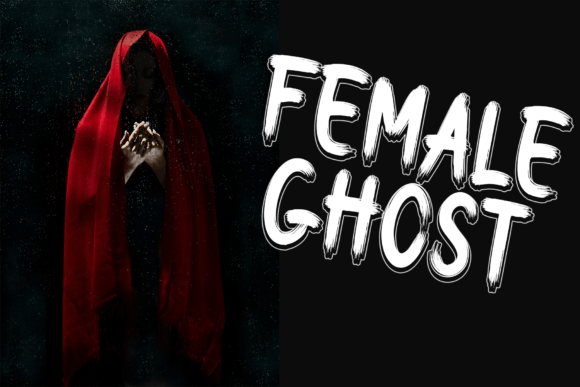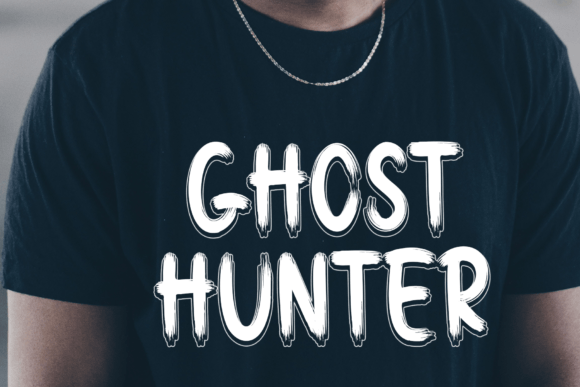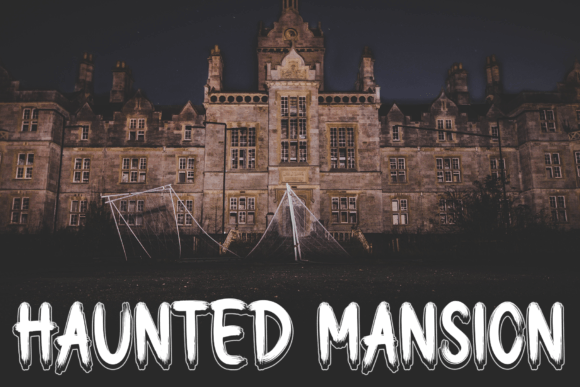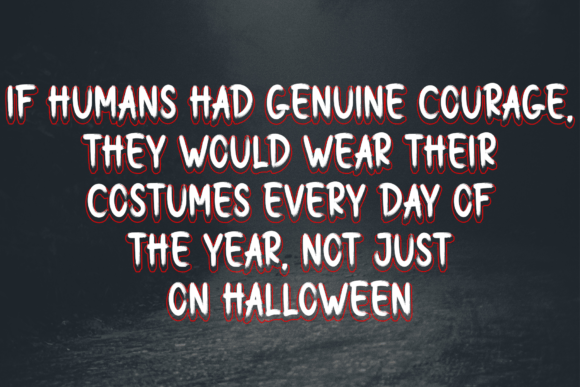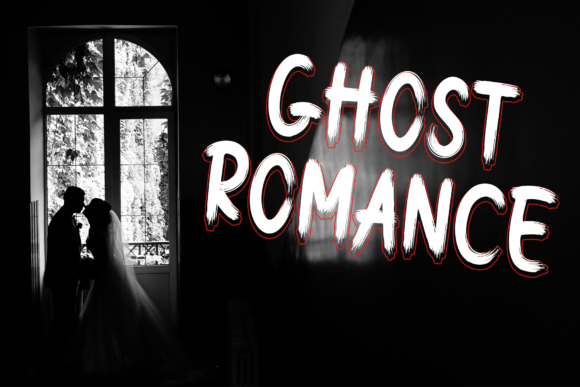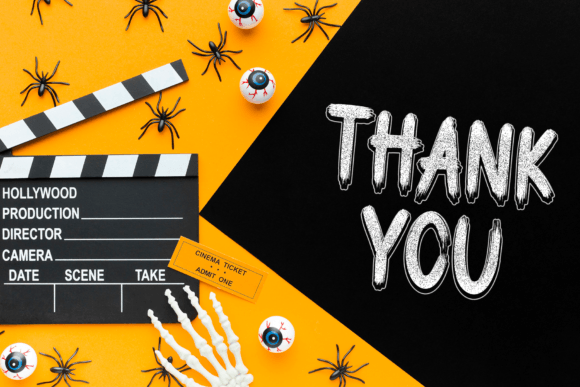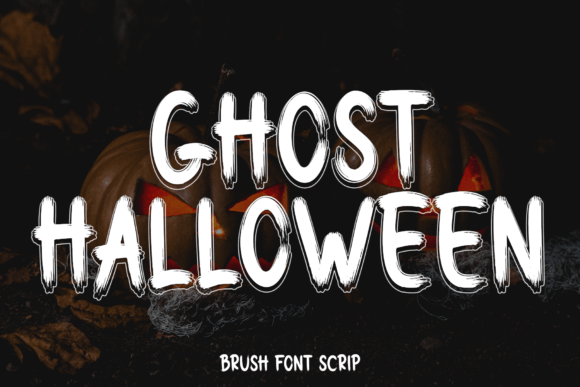
Unleash the Spookiness: A Comprehensive Guide to Ghost Halloween Font
As the spookiest time of the year approaches, designers and crafters are on the lookout for the perfect typography to set the tone for their Halloween-themed creations. Look no further than the Ghost Halloween Font, a unique and eerie brush script font that’s sure to send chills down the spines of your audience. In this article, we’ll dive into the details of this fascinating font and explore its endless possibilities for creating eye-catching Halloween designs.
What is Ghost Halloween Font?
Ghost Halloween Font is a brush script font that combines the fluidity of handwriting with the boldness of a display font. Its unique and spooky typeface is specifically designed to capture the essence of the Halloween season, making it perfect for creating a wide range of designs, from party invitations to social media graphics.
Key Features of Ghost Halloween Font
- Brush Script Style: The Ghost Halloween Font boasts a beautiful, hand-brushed look that adds a touch of elegance and sophistication to your designs.
- Spooky and Eerie: The font’s bold and dramatic design makes it perfect for creating spooky and eerie effects that are sure to send chills down the spines of your audience.
- Perfect for Display: The Ghost Halloween Font is designed specifically for display use, making it perfect for headlines, titles, and other prominent text elements.
- Easily Readable: Despite its bold and dramatic design, the Ghost Halloween Font remains easily readable, making it perfect for use in a wide range of designs.
Uses for Ghost Halloween Font
The Ghost Halloween Font is incredibly versatile and can be used in a wide range of designs, including:
- Halloween Party Invitations: Create eye-catching and spooky invitations that set the tone for your Halloween party.
- Social Media Graphics: Use the Ghost Halloween Font to create spooky and engaging social media graphics that are sure to grab the attention of your followers.
- Halloween-themed Stationery: Add a touch of spookiness to your Halloween-themed stationery, including cards, stickers, and other paper crafts.
- Signage and Displays: Use the Ghost Halloween Font to create eye-catching signage and displays for your Halloween-themed events or promotions.
Tips for Using Ghost Halloween Font
To get the most out of the Ghost Halloween Font, here are a few tips to keep in mind:
- Use it Sparingly: While the Ghost Halloween Font is perfect for display use, it’s best to use it sparingly to avoid overwhelming your design.
- Pair it with Other Fonts: Experiment with pairing the Ghost Halloween Font with other fonts to create a unique and visually appealing design.
- Play with Colors: Don’t be afraid to experiment with different colors and textures to add depth and interest to your design.
The Ghost Halloween Font is a unique and spooky typeface that’s perfect for creating eye-catching and eerie designs for the Halloween season. With its brush script style, bold and dramatic design, and ease of use, it’s a must-have font for designers and crafters looking to create spooky and engaging designs. Whether you’re creating Halloween party invitations, social media graphics, or signage and displays, the Ghost Halloween Font is sure to be a hit.